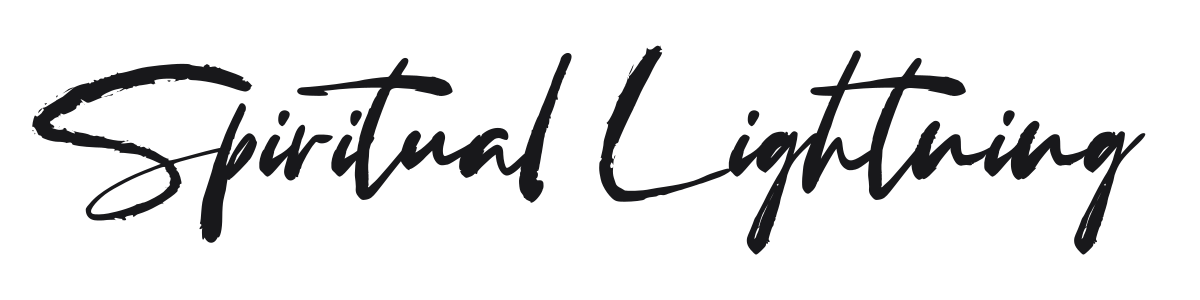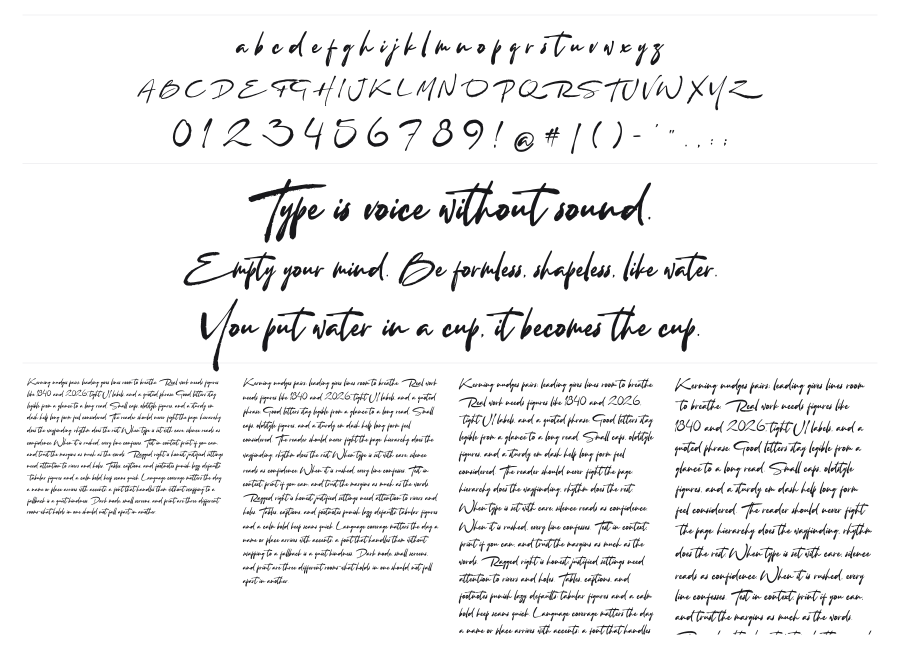
Spiritual Lightning
Spiritual Lightning is a fast, expressive brush script with rough ink texture and flowing connected strokes. The frayed edges and irregular pressure give it an authentic hand-lettered quality that feels spontaneous rather than polished. Works well at large sizes for logos, packaging, and editorial headlines.